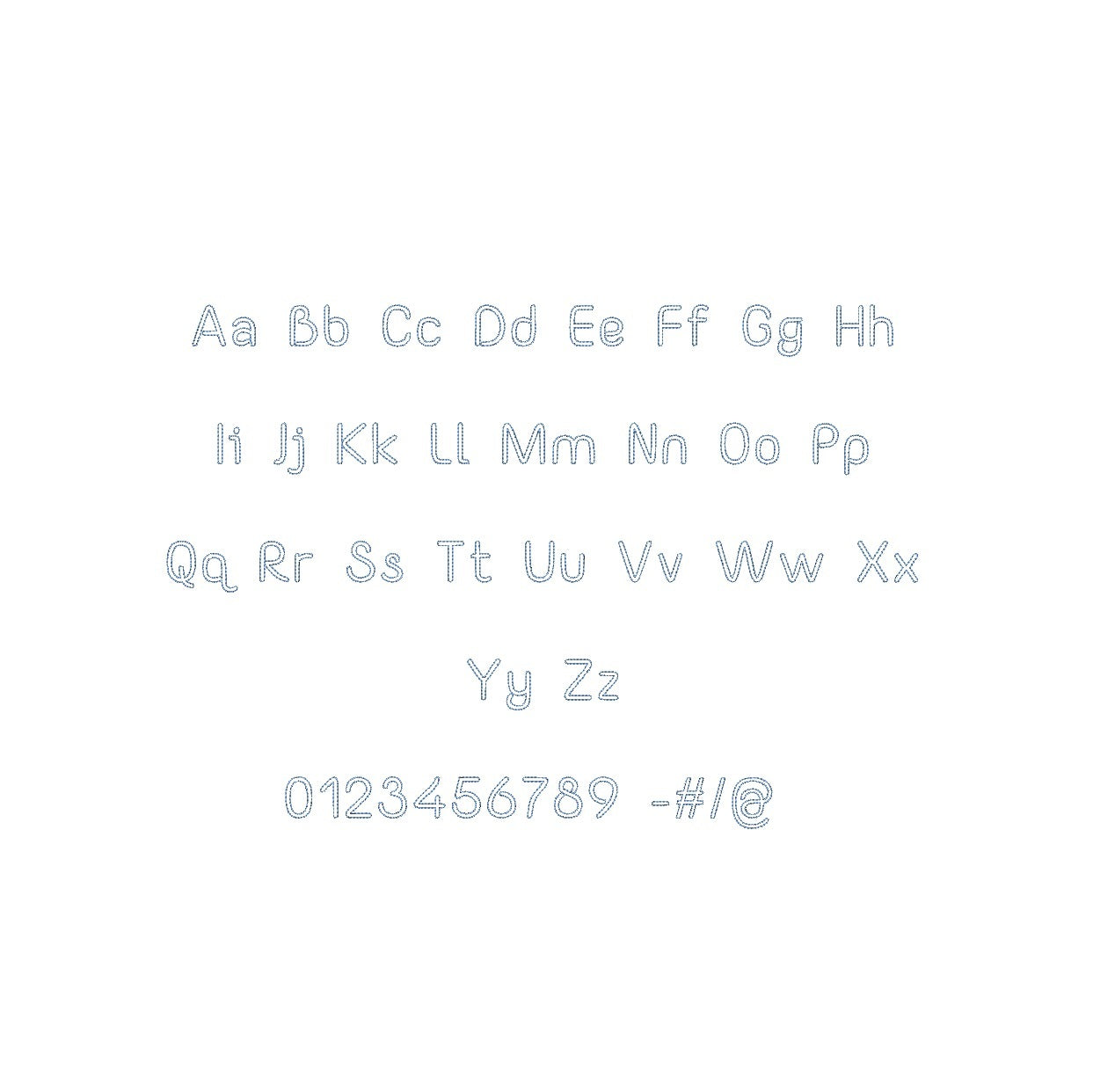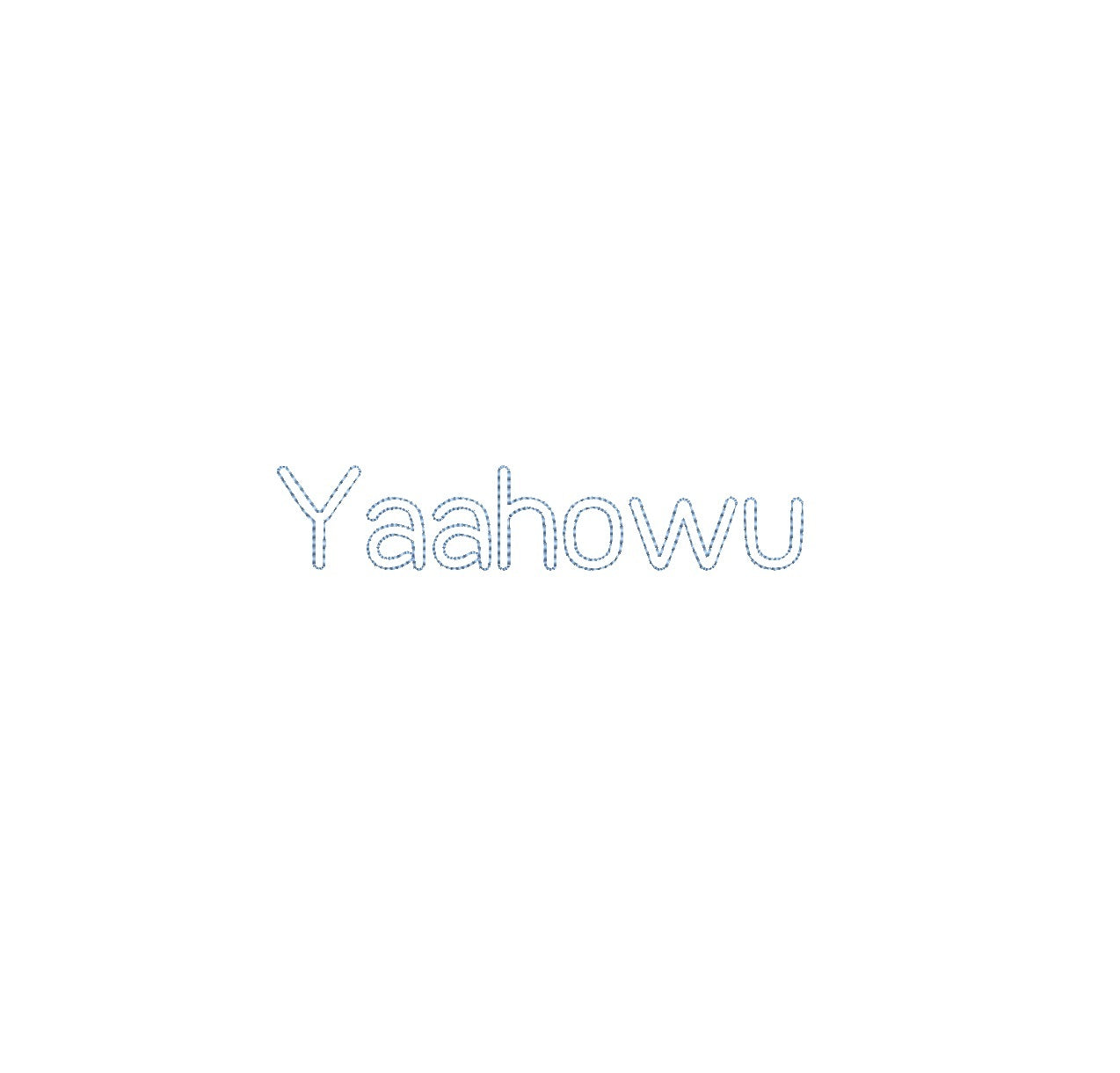
Elevate your embroidery projects with the Yaahowu Bean Stitch Outline ESA font, compatible with Wilcom Studio e4.5.6 and Hatch 3 versions and up. This font seamlessly combines cultural inspiration and precision, infusing your designs with a unique aesthetic perfect for diverse monograms and embellishments. Experience seamless compatibility for exceptional results and unleash a new level of stitching finesse. Transform your creations into embroidery masterpieces that celebrate heritage and creativity. Elevate your projects with the Yaahowu Bean Stitch Outline ESA font and make your embroidery truly culturally rich and unforgettable.